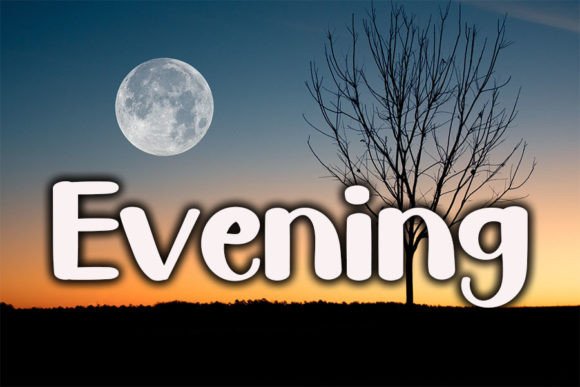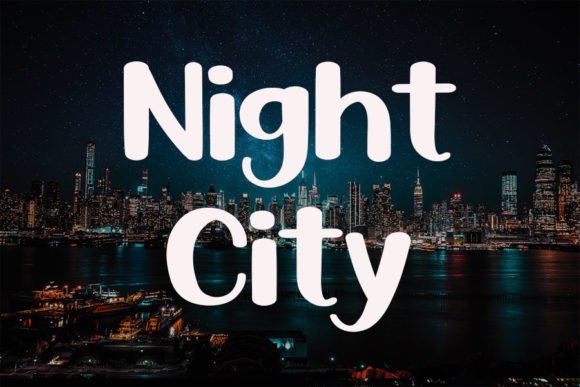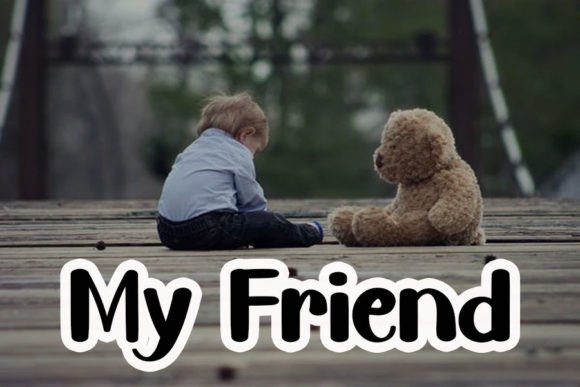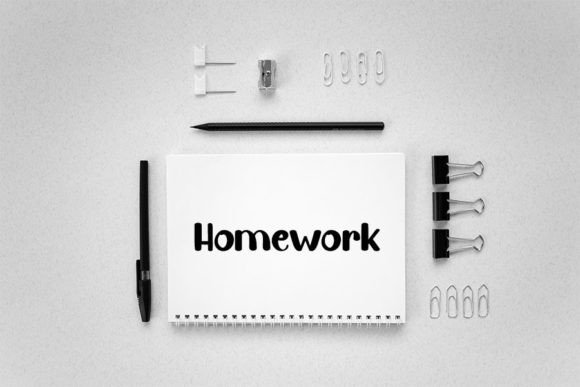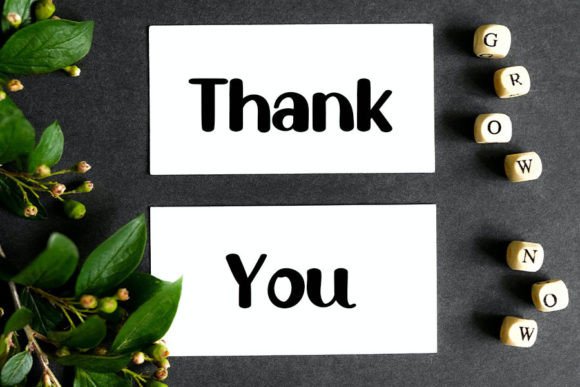
Meet the Font that’s Making Waves: Baby Shark Font
Have you ever stumbled upon a font that just makes you smile? For many designers, that moment is a game-changer. It’s the spark that sets their creativity ablaze, and suddenly, a project that seemed dull and uninspiring becomes a masterpiece. That’s exactly what happens when you discover the Baby Shark Font – a charming, handwritten font that’s as friendly as it is versatile.
Baby Shark Font is more than just a font; it’s a creative tool that helps designers bring their ideas to life. Whether you’re crafting social media posts for Instagram, designing DIY projects, or creating beautiful calligraphy scripts, this font is sure to turn your vision into a stunning work of art. With its playful, carefree feel, Baby Shark Font is an invaluable asset for any designer looking to add a personal touch to their work.
Baby Shark Font Key Features
- Unique Characteristics: Custom-designed, hand-drawn, and colorful, perfect for children’s content and entertainment
- Color Palette: Bright, vibrant colors, including pink, blue, yellow, and orange, inspired by the popular children’s song
Designer Review: Baby Shark Font
As a designer, I was both intrigued and skeptical about reviewing the ‘Baby Shark Font’. While it’s not a traditional font, I’ll provide my honest assessment of its strengths and weaknesses.
The font’s main strength is its iconic recognition ✨. For anyone familiar with the popular children’s song and TV show, the font immediately evokes a sense of nostalgia and playfulness. It’s perfect for creating engaging content for young audiences or for designers looking to add a touch of whimsy to their projects.
However, I found the font to have some significant limitations ⚠️:
- Limited versatility: The font’s design is heavily tied to the Baby Shark brand, which may limit its use in broader design contexts.
- Difficulty in customisation: The font’s unique design may make it challenging to adjust or customise for specific design needs.
- Lack of professionalism: Some users may view the font as too childish or unprofessional for certain design applications.
Overall, I’d say the Baby Shark Font is a fun and engaging choice for specific design projects, but its limitations should be carefully considered before use.
The Baby Shark Font is commonly used in children’s birthday party invitations, nursery decorations, and educational materials. It’s also used in social media graphics, memes, and other fun and playful content.